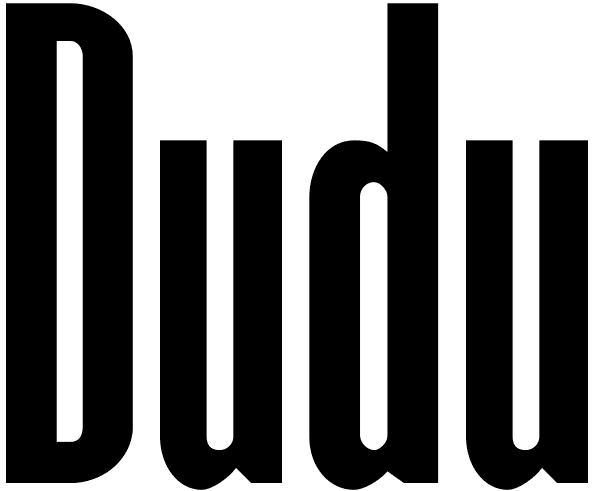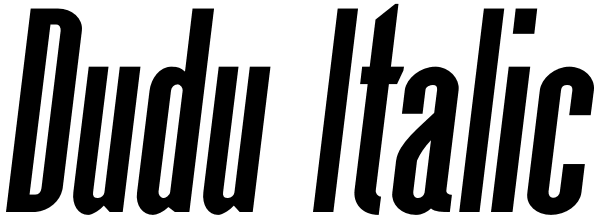
Dudu
Dudu is a font which I made mainly for my own purposes. A lot of times in many projects I was looking for elegant vertical and modular typeface. There is a lot of fonts that overall look good but if You take a closer look, You can clearly see they...